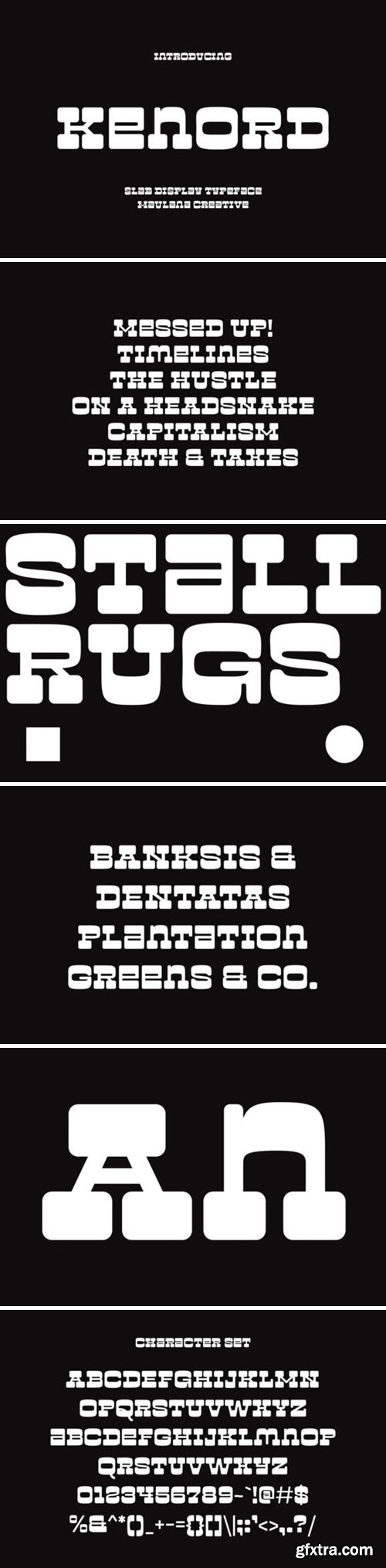
肯尔德字体
Kenord is a soft slab serif display font with heavy strokes and a playful character, complete with a variety of ligatures to enhance your creative work. Kenord supports over 100 languages, making it versatile for various design needs. Whether you’re working on logo design, social media graphics, movie titles, book titles, short or long text, Kenord is an excellent choice. It pairs beautifully with script or serif fonts, making it suitable for both primary and secondary text. Create stunning designs with the Kenord font.